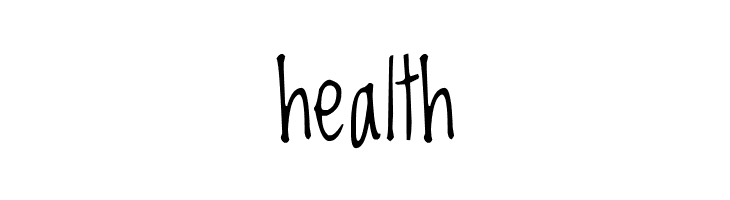
DM Serif Display Regular Font
A classic serif typeface with high contrast and elegant strokes.
NewYork Font
An elegant, high-contrast serif font with dramatic strokes and stylish curves.
DM Serif Text Regular Font
A classic serif typeface with balanced proportions and moderate contrast.
DM Serif Display Italic Font
An elegant serif typeface with a classic italic style, perfect for sophisticated designs.
Octin Stencil Free Font
A bold, geometric stencil-style font with sharp angles and cut-out sections.
Octin Sports Free Font
A bold, geometric font with a strong, athletic appearance.
Cedarville Cursive Font
A lively cursive font with smooth, flowing strokes and a playful, elegant style.
Octin College Free Font
A bold, geometric font with a strong, modern presence.
Love Ya Like A Sister Regular Font
A playful, hand-drawn font with a casual and friendly appearance.
Hybrid Hibiscus Font
A decorative font with floral embellishments and elegant serif details.
Octin Prison Free Font
A bold, industrial font with a geometric, stencil-like design.
Free Monospaced Font
A clean, monospaced typeface with uniform spacing and modern design.
DM Serif Text Italic Font
A classic serif font with elegant italics and balanced contrast.
Loved by the King Font
A playful, handwritten font with a casual and informal style.
KG Love Ya Like A Sister Font
A playful, hand-drawn font with a whimsical and sketch-like texture.
Octin Vintage Free Font
A bold, distressed font with a vintage, industrial style.
ALEWISDODI Font
A bold, modern font with strong, clear characters.
GiveYouGlory Font
A playful, casual handwritten font with fluid strokes and rounded edges.
Give You Glory Font
A playful, casual handwritten font with flowing, irregular strokes.
coughymachine Font
A bold, geometric font with a digital, pixelated style.